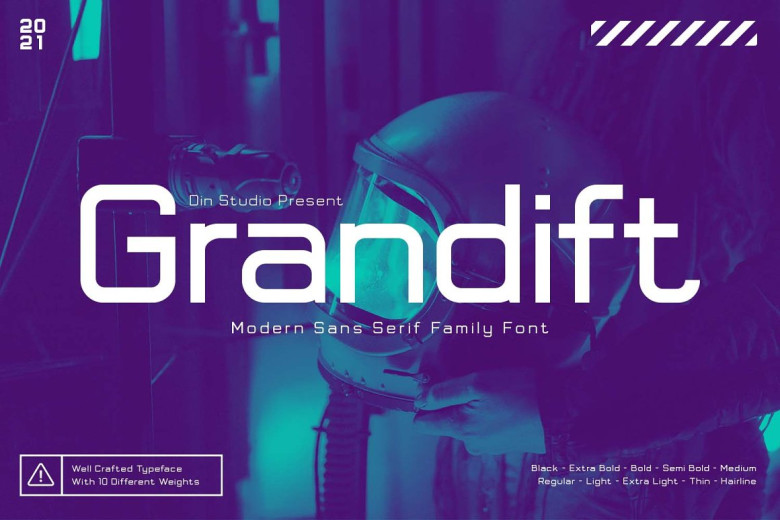
Grandift Font
Welcome to the Grandift Sans Serif Font Family! Grandif fonts come with eight thickness levels for you to use when designing your dream piece – grandift’s elegant and modern styles can help bring your creation to life!
Grandift Sans Serif Font